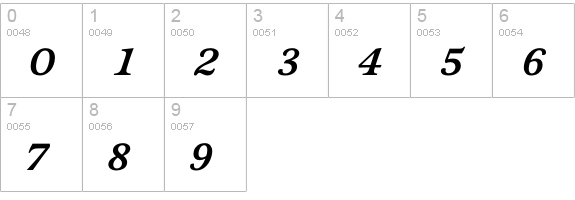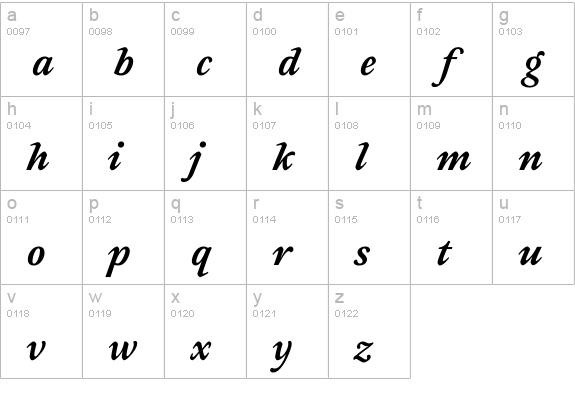
Sovereign-ExtraBoldItalic is a remarkable and striking font that exudes power and elegance like no other. With its strong and commanding presence, this font demands attention and leaves a lasting impression on any design it graces. The unique combination of boldness and italics creates a perfect balance between strength and sophistication, making Sovereign-ExtraBoldItalic an ideal choice for headlines, logos, and any design project that requires a touch of authority and grandeur. The carefully crafted letterforms of Sovereign-ExtraBoldItalic are meticulously designed to convey a sense of confidence and professionalism. Each stroke is meticulously executed, highlighting the font's impeccable attention to detail. The versatility of Sovereign-ExtraBoldItalic ensures that it can be seamlessly integrated into a variety of creative projects. Whether used for print or digital media, this font enhances any composition with its bold and italicized presence, elevating the overall aesthetic appeal. What's even more exciting is that Sovereign-ExtraBoldItalic is available for free download at FontsMarket.com. This means that you can access this exceptional font without any cost, allowing you to unleash your creativity without any limitations. FontsMarket.com is a reputable source for high-quality fonts, and their commitment to providing free access to Sovereign-ExtraBoldItalic demonstrates their dedication to supporting designers and creatives worldwide. Download Sovereign-ExtraBoldItalic now and experience the power and elegance it brings to your designs. Let this captivating font elevate your projects and make a lasting impression on your audience.